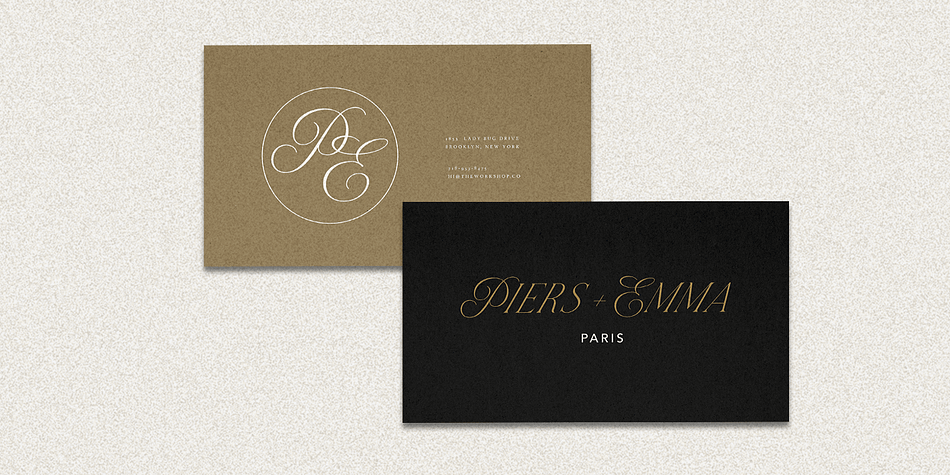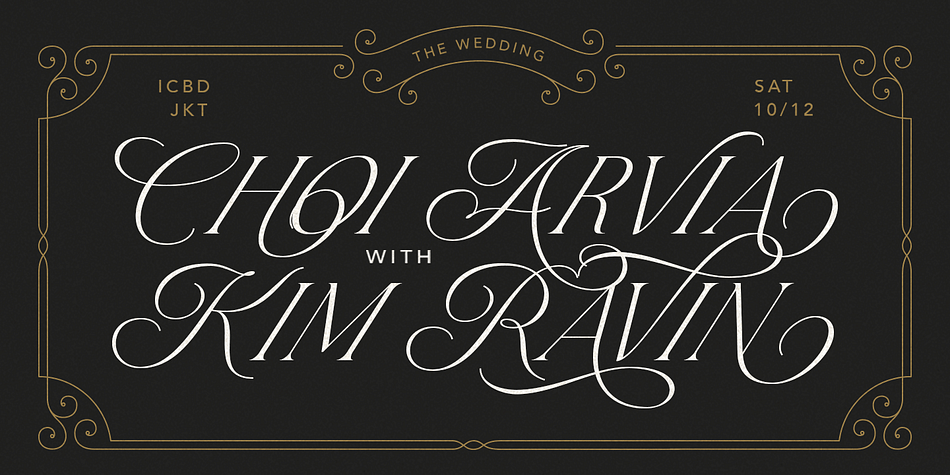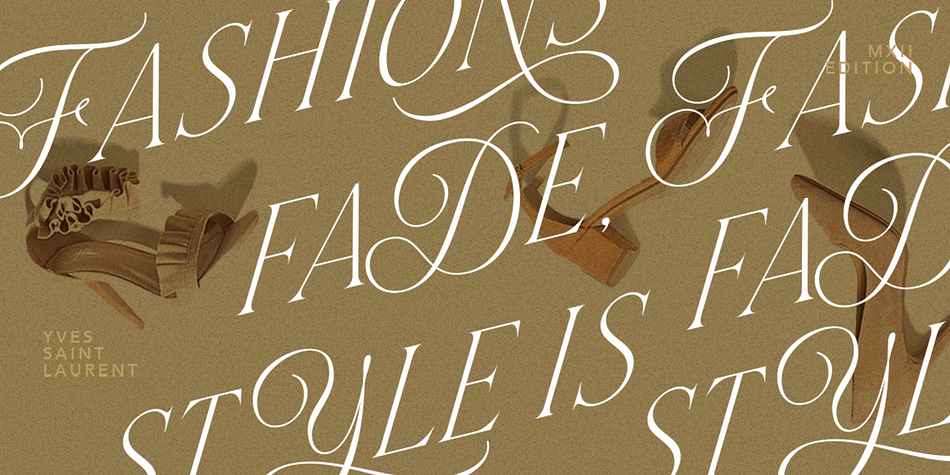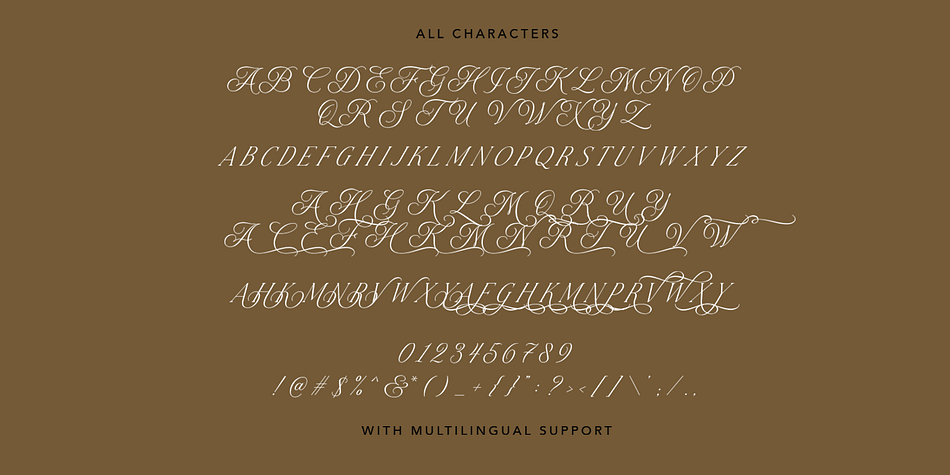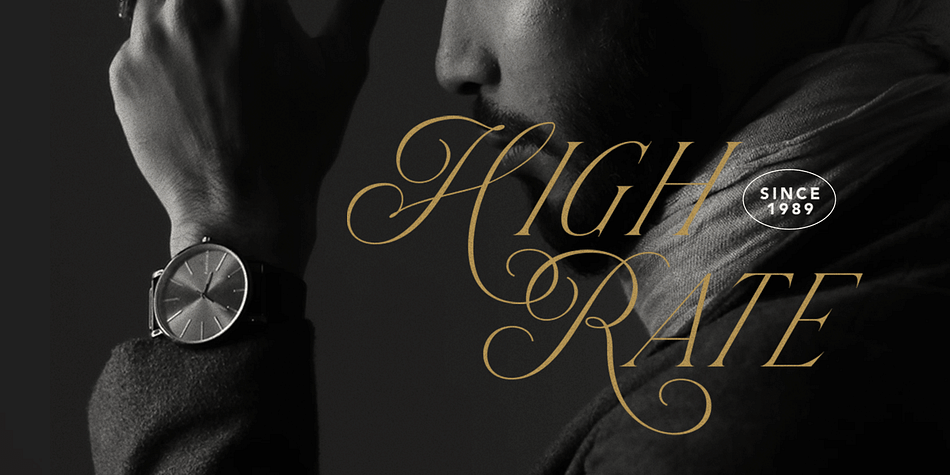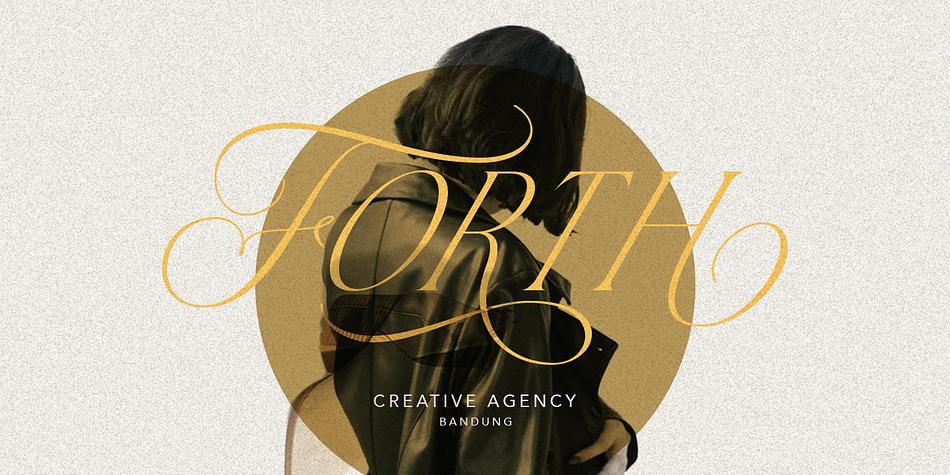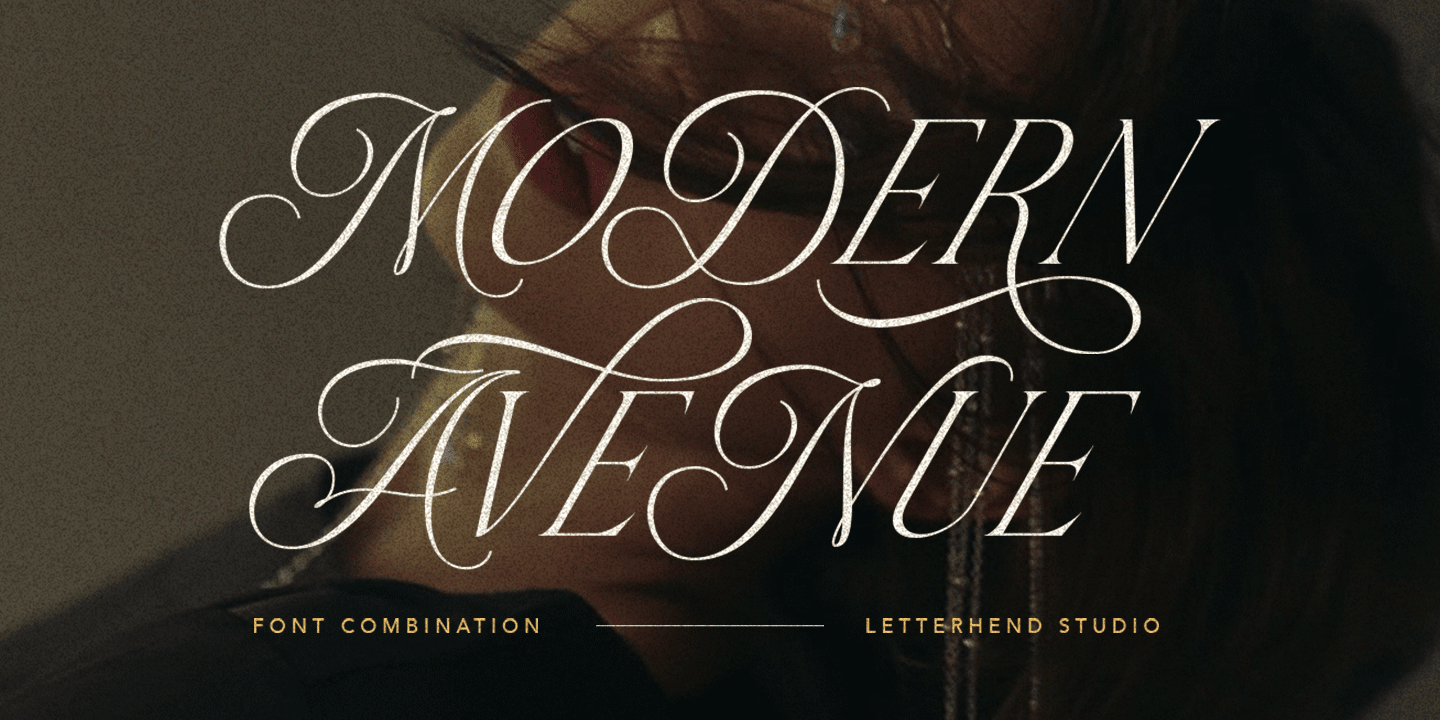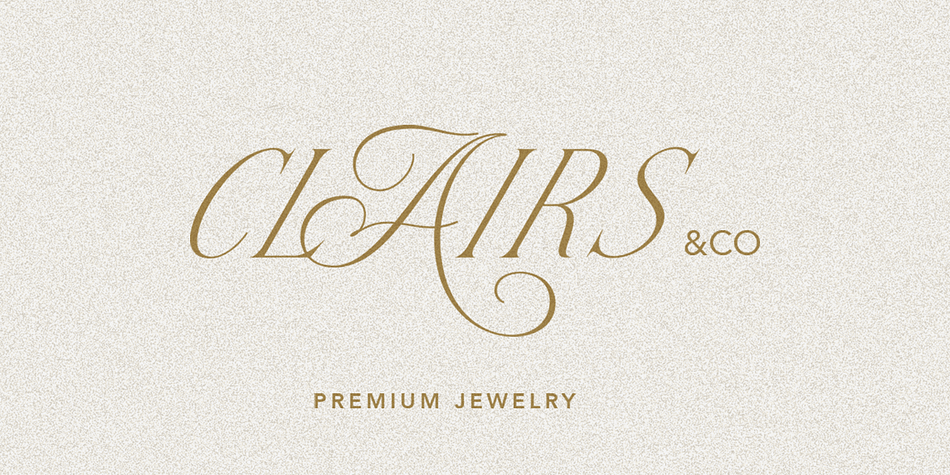
Modern Avenue
Designed by Hendry Juanda, Modern Avenue is a display serif, modern calligraphy and script font family published by Letterhend Studio.
Modern Avenue is an elegant and modern font that combines a serif with a classic script style. Its many alternates characters, including swashes, provide additional beauty and versatility, perfect for any design. The font’s elegant and sophisticated look, with its classy characteristic, makes it ideal for high-end projects like luxury branding, packaging and the other various formal forms such as invitations, labels, logos, magazines, books, greeting / wedding cards, packaging, fashion, make up, stationery, novels, labels or any type of advertising purpose. With its perfect balance of modern and classic design, Modern Avenue provides a timeless and refined feel to any design.
- Alternates & Ligatures
Styles Display Serif, Modern Calligraphy, Script